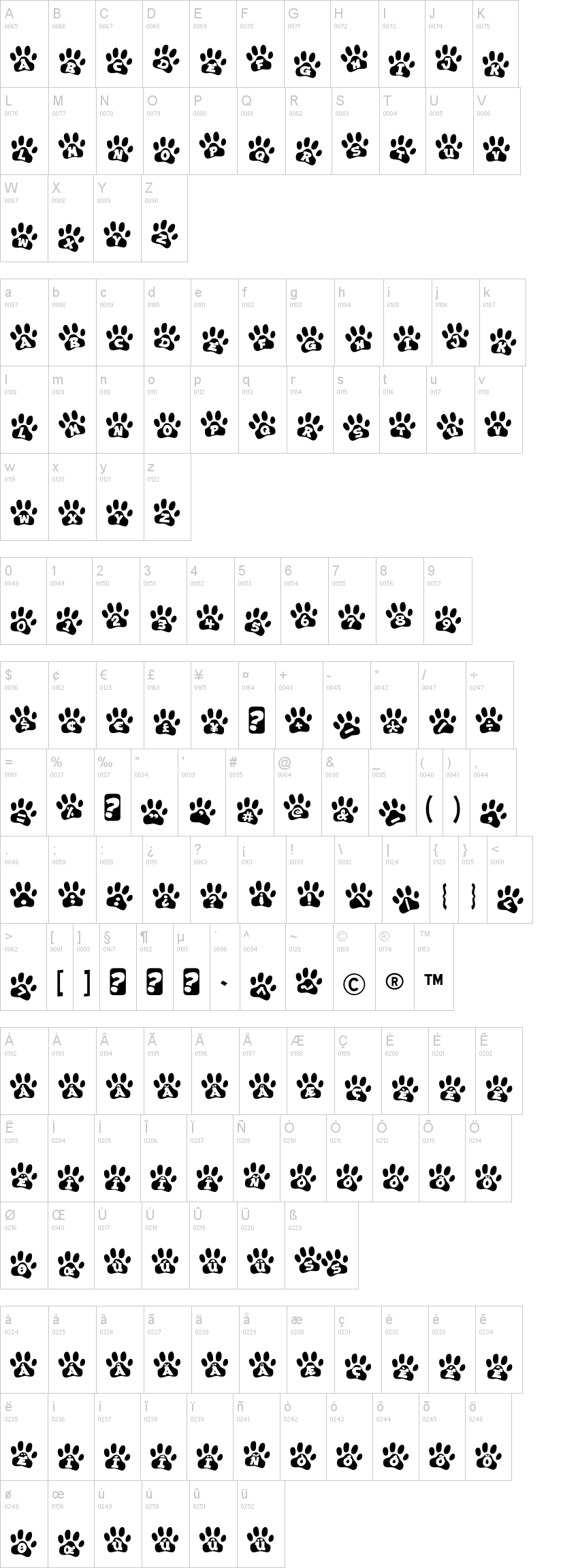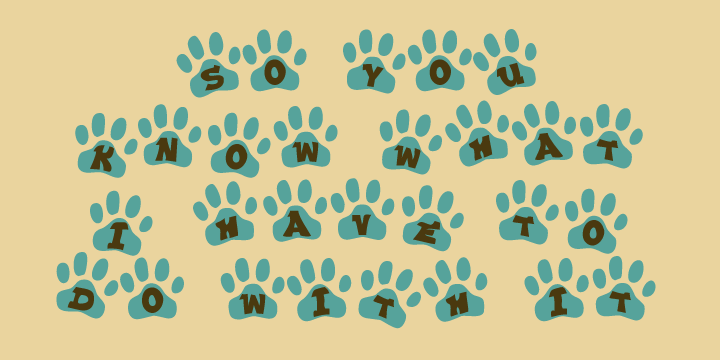
Шрифт Ennobled Pet
Ennobled Pet resembles a pet's paws after taking a walk through an old fashioned print shop. Don't forget to read the files inside the zip for details. Updated in 2012.